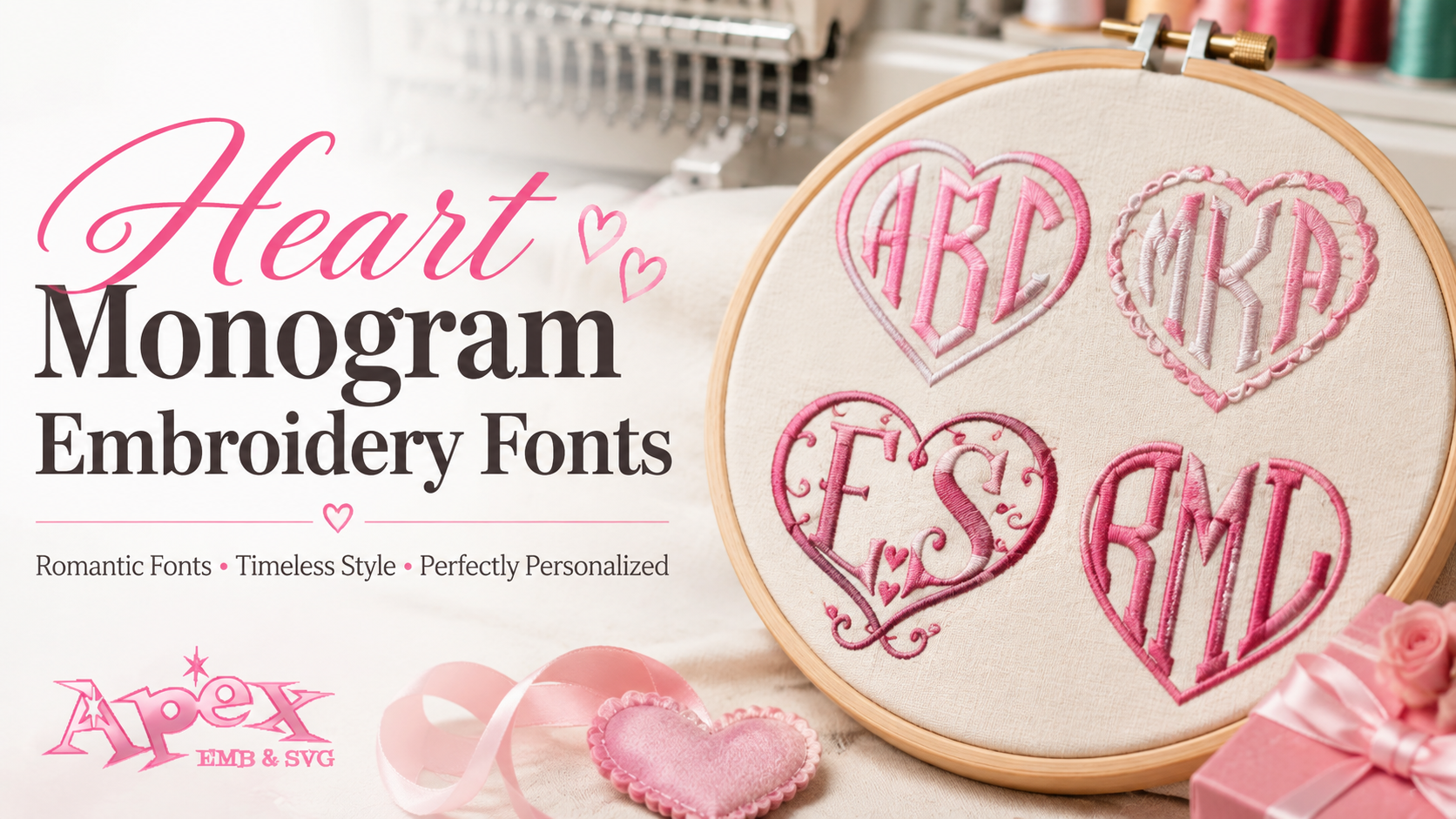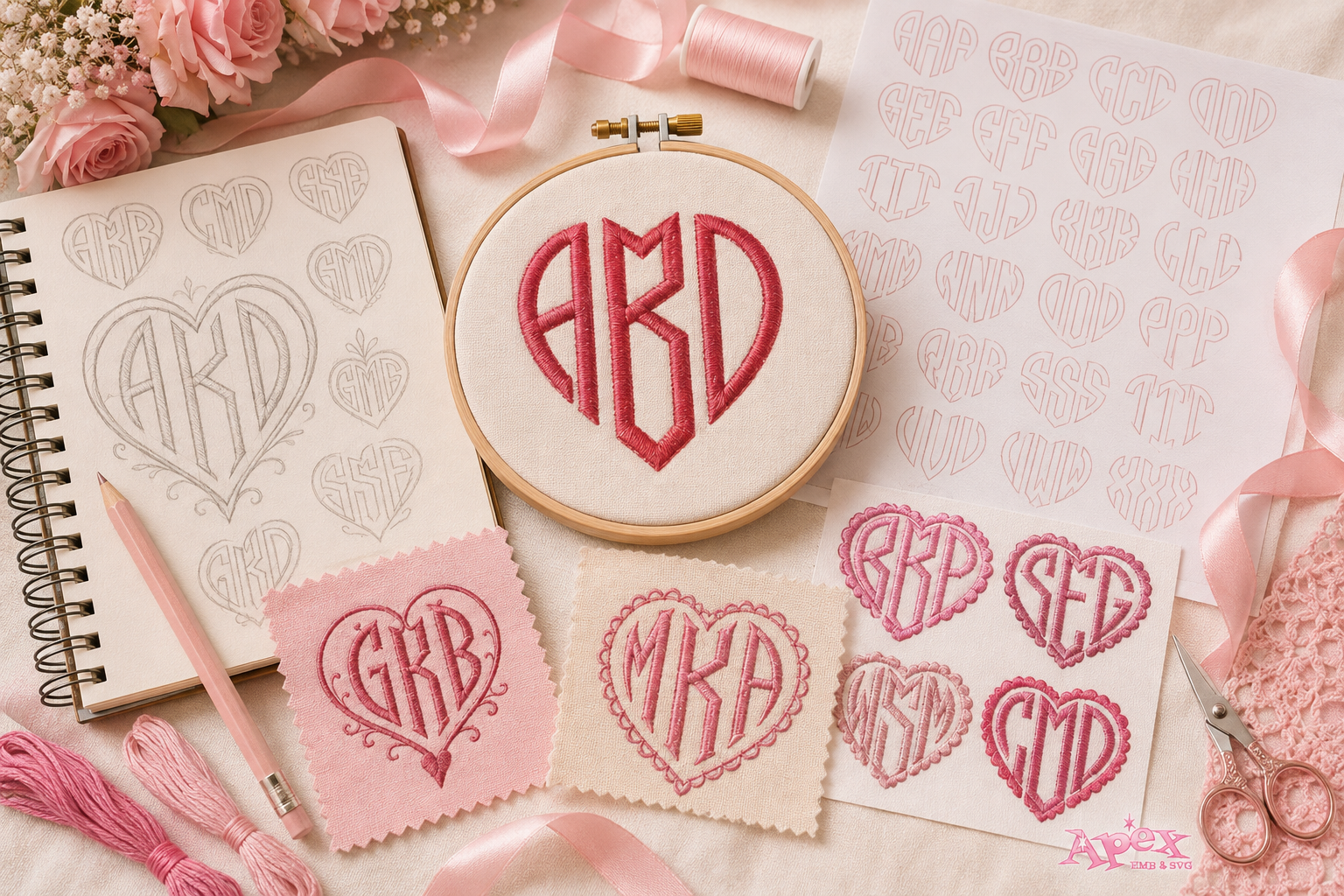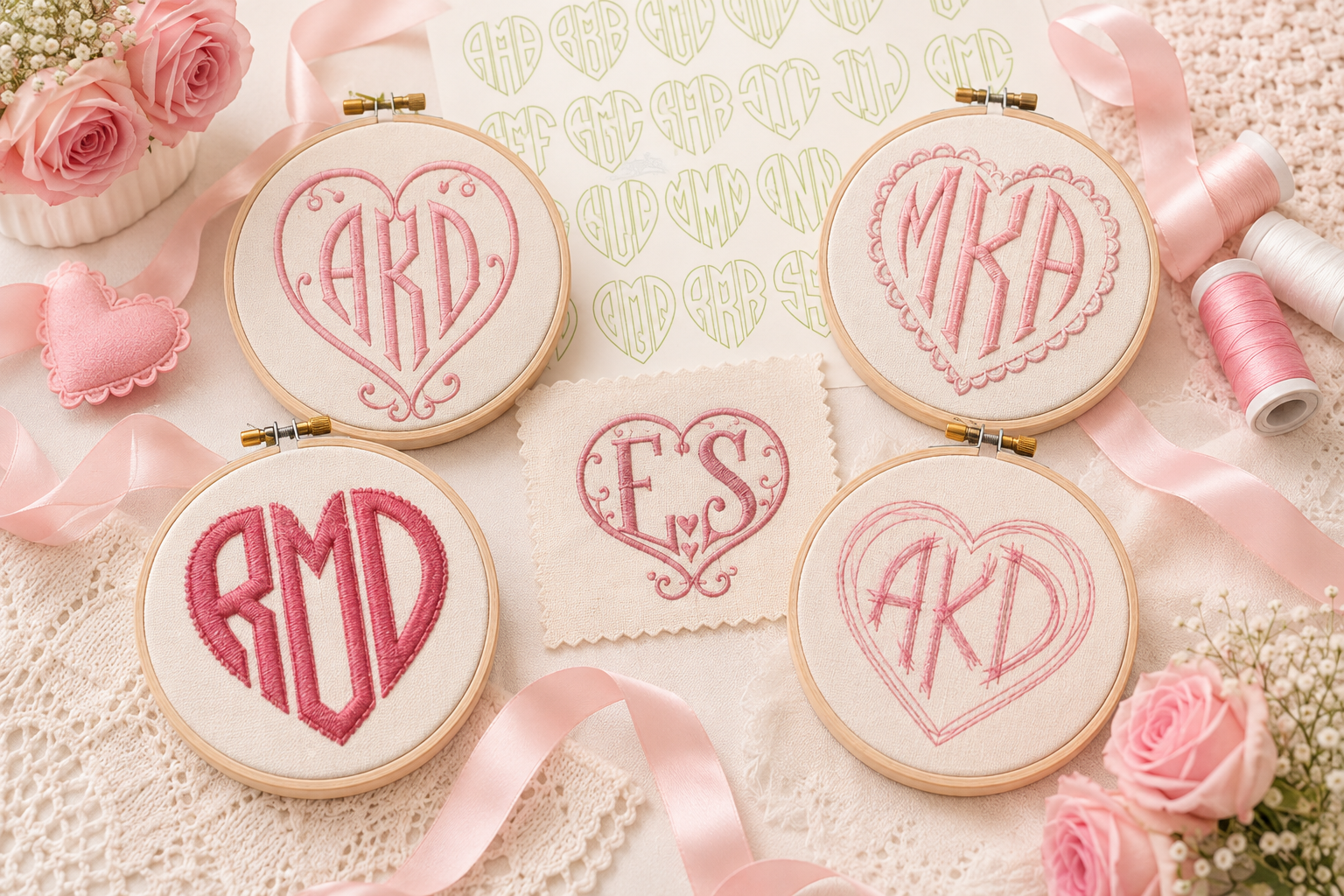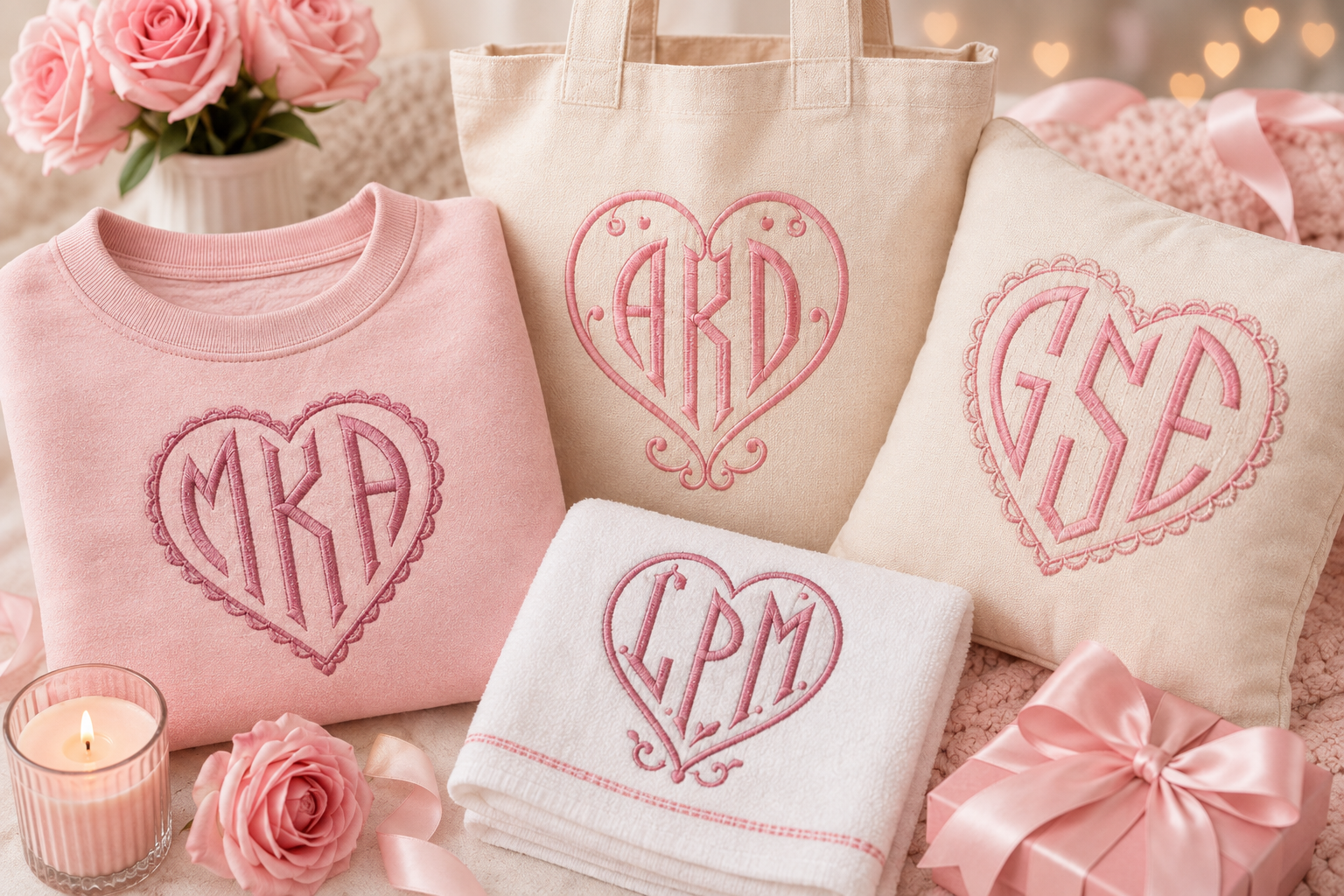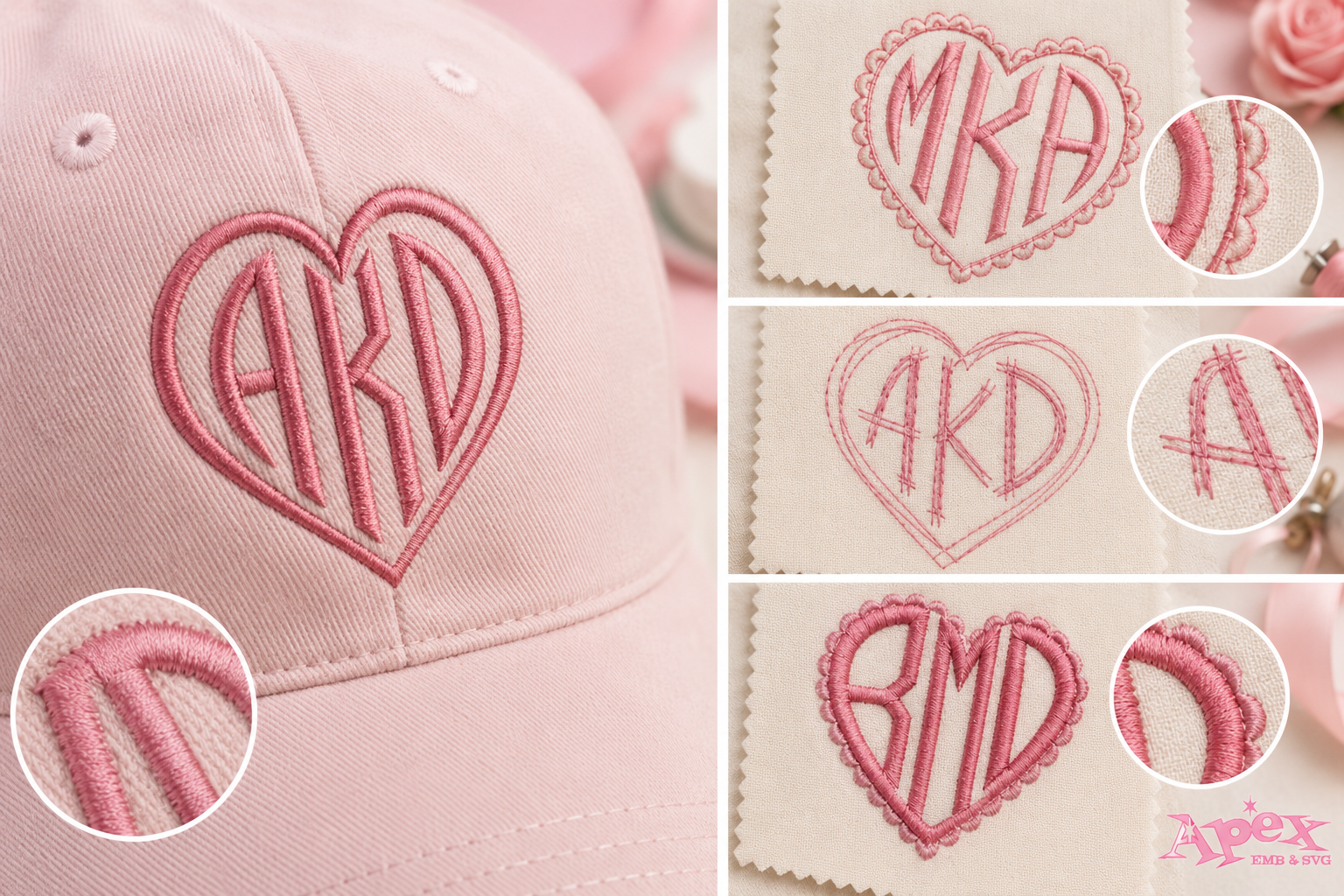
Heart Monogram Embroidery Fonts: The Design That Started Apex
Before Apex had a full collection of heart monogram embroidery fonts, there was one idea that simply would not go away.
Our founder loved the look of the Full Circle Round font but kept imagining something different: what if that same rounded monogram concept could be shaped into a heart?
At the time, he couldn't find the heart-shaped embroidery font he had in mind online.
That first font took eight months to develop.
The result became the Heart Monogram Embroidery Font , the design that started an entire family of Apex heart fonts and remains one of our favorite choices for Valentine's Day embroidery, personalized gifts, weddings, and monogrammed projects.
What Is a Heart Monogram Embroidery Font?
A heart monogram embroidery font is a machine embroidery alphabet designed so initials come together to create a heart-shaped monogram.
Instead of placing ordinary letters inside a separate heart frame, the letters themselves become part of the heart. This creates a personalized design that works beautifully on sweatshirts, towels, bags, pillows, blankets, wedding gifts, and Valentine's Day projects.
For the classic Apex heart style, start with our original Heart Monogram Embroidery Font . It is the font that started the entire collection.
From One Heart Font to a Whole Collection
The original heart font eventually inspired several different stitch styles, giving embroiderers more ways to use the same heart-shaped monogram concept.
Classic Heart Monogram
The Heart Monogram Embroidery Font is the best place to start if you want the original Apex heart shape. It is a versatile choice for Valentine's Day gifts, personalized apparel, wedding projects, towels, bags, and home décor.
2-Color 3D Puff Heart Monogram
For a bolder and more dimensional look, try the Heart Monogram 2-Color 3D Puff Embroidery Font . The raised embroidery effect makes it especially eye-catching on caps, sweatshirts, jackets, and statement apparel.
Scalloped Heart Monogram
The Heart Scalloped Monograms Embroidery Fonts add a decorative scalloped edge to the heart shape, making them a great option for feminine gifts, children's items, towels, and Valentine's Day embroidery.
Sketch Heart Monogram
If you prefer a lighter stitched appearance, the Heart Monogram Sketch Embroidery Font offers a relaxed sketch-style finish that uses less dense stitching than a traditional filled design.
Sketch Appliqué Heart Monogram
The Heart Monogram Sketch Applique Embroidery Font combines appliqué fabric with a sketch-style stitched finish, allowing you to add color, texture, and fabric patterns to personalized heart monograms.
Filled Heart Monogram
For a strong, fully stitched look, choose the Heart Monogram Fill Embroidery Font . This version works well when you want the monogram itself to become the main focal point of the project.
Heart Appliqué Monogram
The Heart Applique Monograms Embroidery Fonts let you incorporate your favorite fabric into the heart design. They are a fun choice for shirts, sweatshirts, children's clothing, bags, blankets, and seasonal projects.
Heart Tail Monogram
For something more playful and decorative, the Heart Tail Monogram Embroidery Font adds a flowing tail to the classic heart shape, creating a more expressive monogram for personalized gifts and apparel.
Scalloped Heart Appliqué
The Heart Scalloped Applique Monograms Embroidery Fonts combine appliqué fabric with a decorative scalloped border for a softer, more detailed finish.
| Heart Font Style | Best For |
|---|---|
| Original Heart Monogram | Classic personalized gifts, Valentine's Day projects, weddings, and everyday monograms |
| 2-Color 3D Puff Heart | Caps, bold apparel, sweatshirts, and dimensional embroidery |
| Scalloped Heart | Decorative and feminine monogram projects |
| Sketch Heart | Lightweight and casual embroidery |
| Sketch Appliqué Heart | Fabric appliqué with a lighter stitched finish |
| Fill Heart | Bold and fully stitched monograms |
| Heart Appliqué | Projects where fabric color and texture are part of the design |
| Heart Tail | Playful and decorative personalized projects |
| Scalloped Appliqué Heart | Decorative appliqué with an elegant scalloped edge |
Why Heart Monograms Are Perfect for Valentine's Day
Valentine's Day is naturally one of the biggest seasons for heart embroidery designs, but personalization makes a monogram more meaningful than a standard heart graphic.
Instead of simply embroidering a heart, you can turn someone's initials into the design itself.
Heart monogram embroidery fonts are perfect for:
- Personalized Valentine's Day sweatshirts
- Couples' gifts
- Children's Valentine's shirts
What can I embroider with a heart monogram font?
Heart monogram fonts can be used on sweatshirts, towels, bags, pillows, blankets, children's clothing, wedding gifts, Valentine's Day gifts, and many other items suitable for machine embroidery.